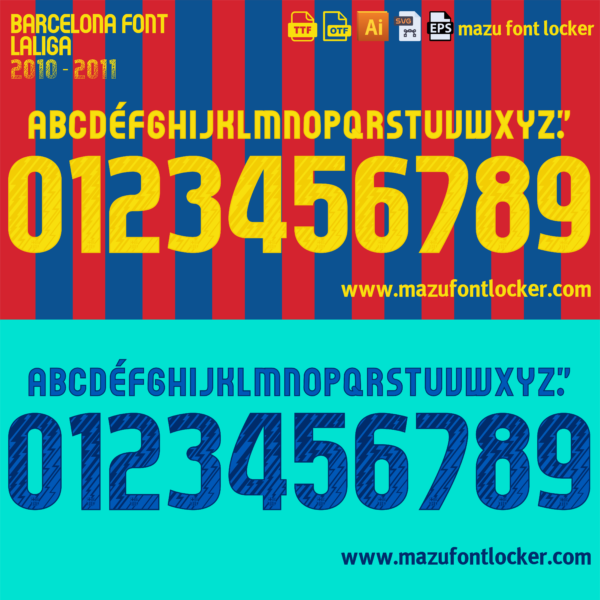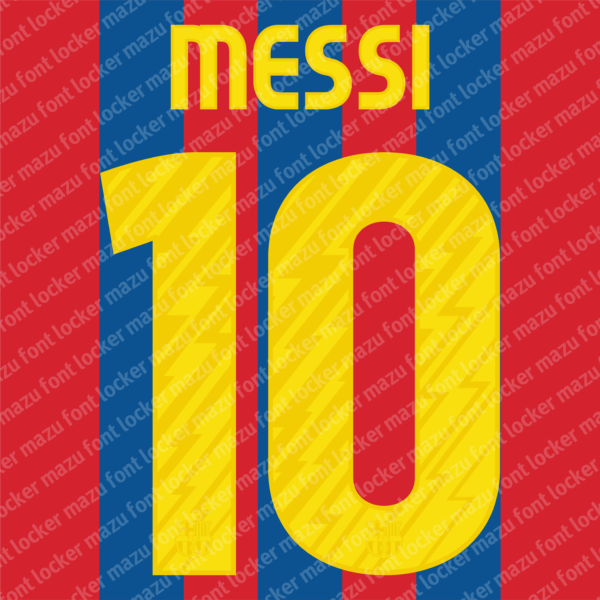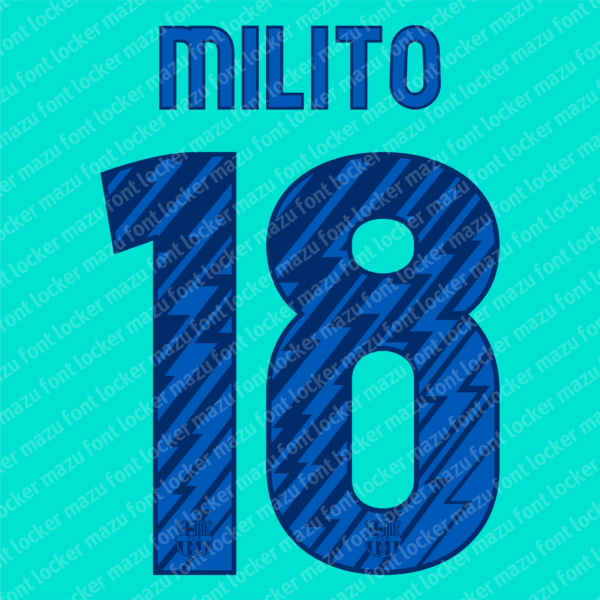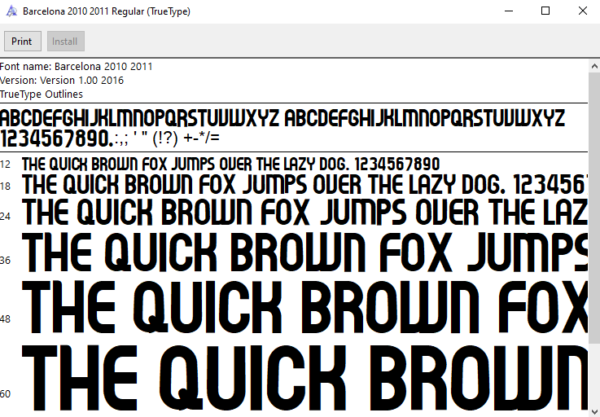
Barcelona 2010-2011 Font Vector – Brilliant Tiki-Taka Masterpiece
Barcelona 2010-2011 Font Vector – Authentic Blaugrana Typeface
Download the Barcelona 2010-2011 Font Vector and powerfully recreate the bold and dynamic match-style lettering worn by the FC Barcelona squad during their legendary 2010-2011 season. This font captures the strong, elegant, and commanding typography that embodies the passionate red-and-blue Blaugrana spirit, delivering unmatched authenticity for premium jersey mockups and football designs.
Why Choose Barcelona 2010-2011 Font
This font stands out because of its sharp details and legendary club identity. Every letter and number is crafted to match the exact style used on the players’ shirts during the historic 2010-2011 season. Whether you are making realistic retro shirt templates or nostalgic football content, the Barcelona 2010-2011 Font gives your designs that authentic Blaugrana magic.
The letterforms in the Barcelona 2010-2011 Font are tall, bold, and highly refined. The strokes have a strong yet elegant weight that looks powerful and prestigious on the back of jerseys while maintaining excellent clarity and sophistication.
The numerals use clean curves and firm edges, giving them a confident and premium appearance. This design ensures great legibility whether used in large print formats, digital mockups, or video content.
- Full uppercase A–Z and numbers 0–9 in authentic Barcelona 2010-2011 style
- Special FC Barcelona crest glyph for accurate shirt number detailing
- Multilingual Latin character support including diacritics
- Create highly realistic Barcelona 2010-2011 jersey mockups with accurate lettering
- Design stunning retro matchday posters, score graphics, and squad announcements
- Produce custom Blaugrana merchandise with a classic and iconic aesthetic
- Includes the exact crest glyph placement used under player numbers